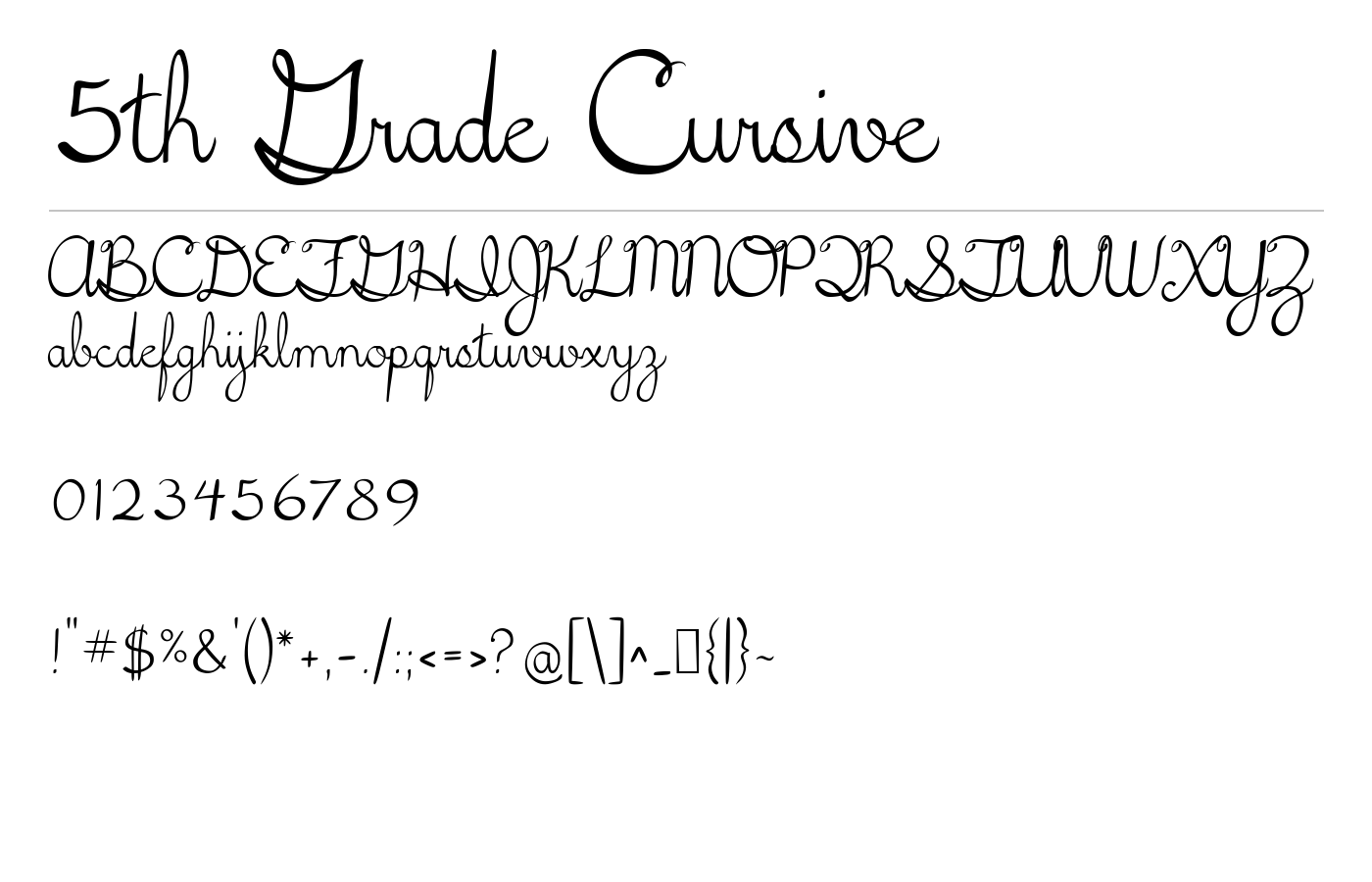
5th Grade Cursive is a playful and delicate script font that mimics traditional cursive handwriting with smooth, flowing lines and slender strokes. Its light weight and airy letterforms give it a friendly and informal feel, making it ideal for educational materials, children’s books, or casual design projects that seek a personal, handwritten touch. This font works best in headlines, invitations, and creative branding where a warm and approachable style is desired.
5th Grade Cursive Font
About 5th Grade Cursive Font